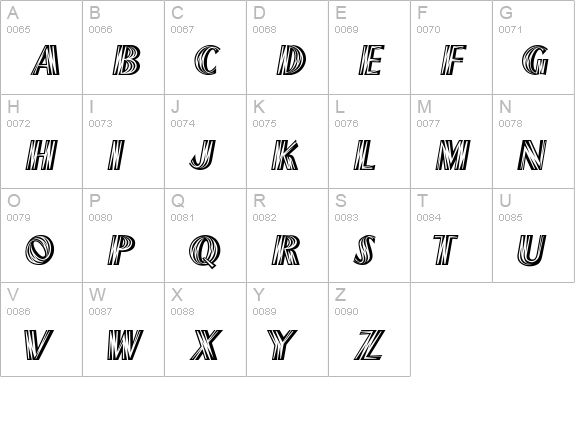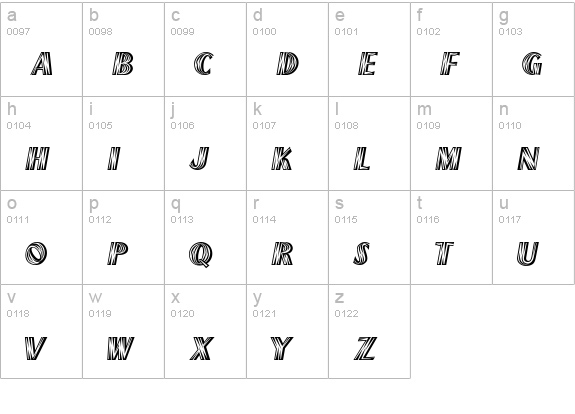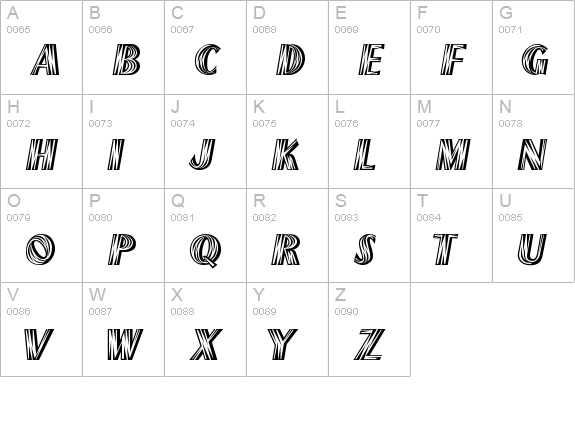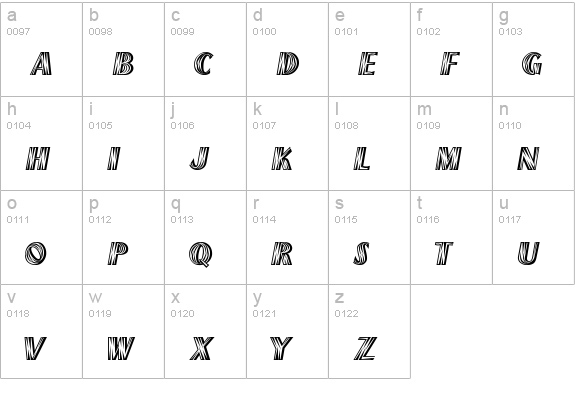
ChiliPepper Font Details
Introducing ChiliPepper font, a fiery and bold typeface that ignites creativity and adds spice to any design project. With its sharp edges and dynamic curves, ChiliPepper font is perfect for making a statement and standing out from the crowd. This versatile font is suitable for a wide range of applications, from branding and packaging to posters and social media graphics. Best of all, ChiliPepper font is completely free to download at FontsMarket.com. Embrace the heat and energy of ChiliPepper font in your next project and let your creativity sizzle!